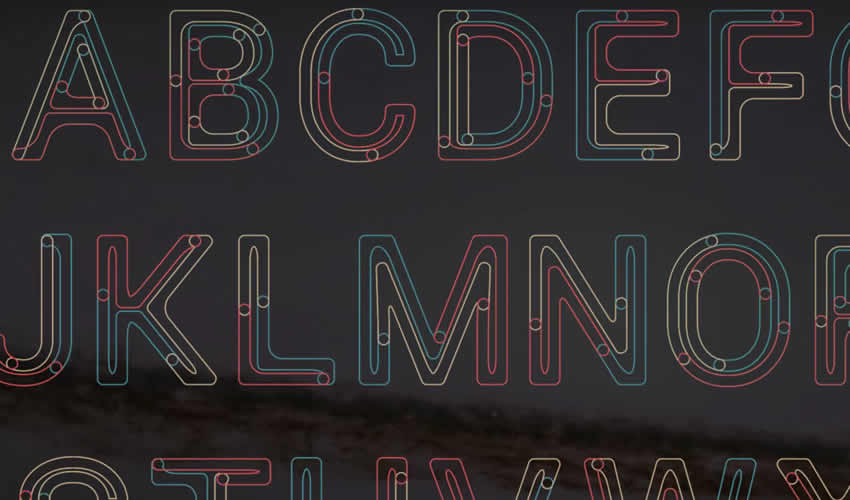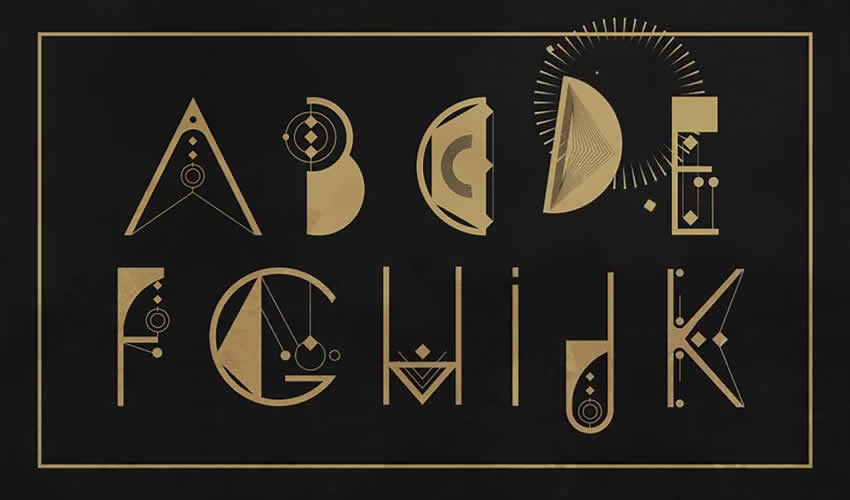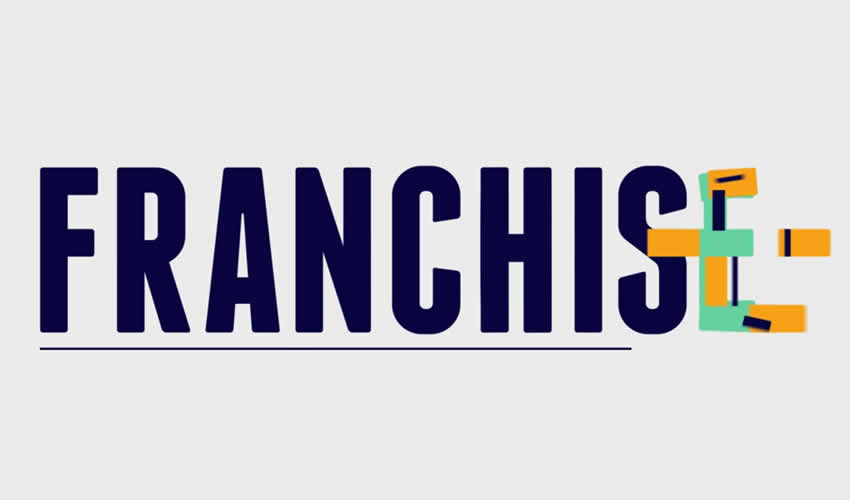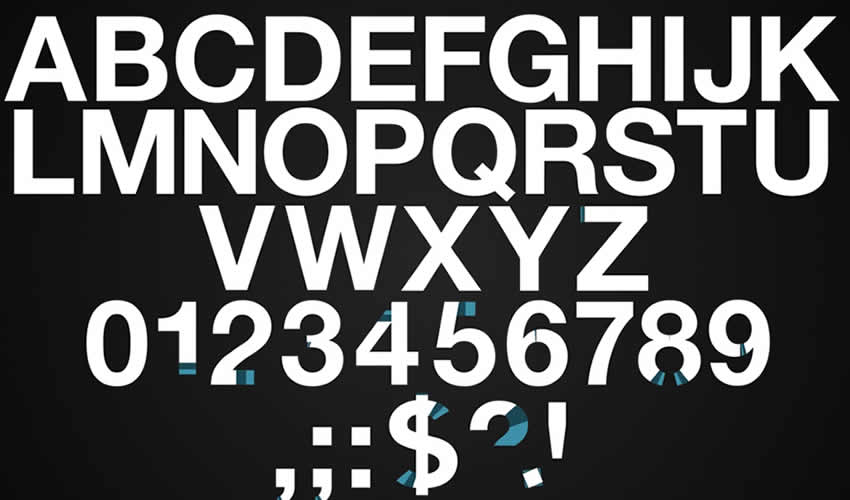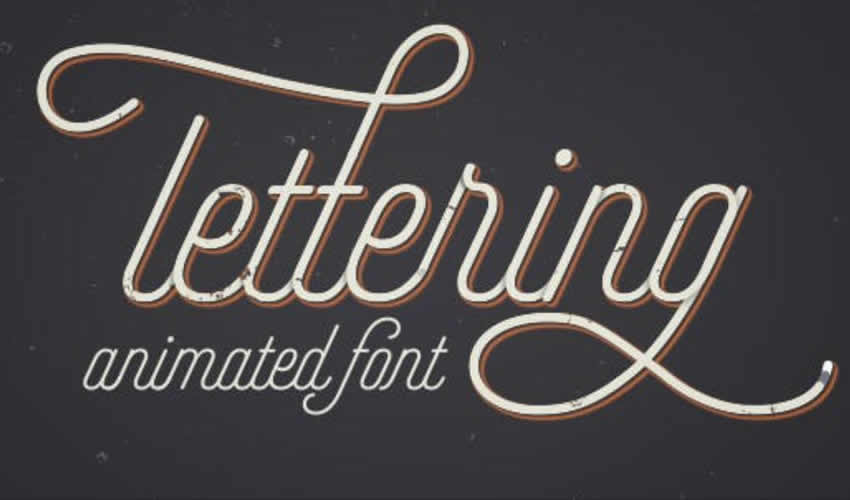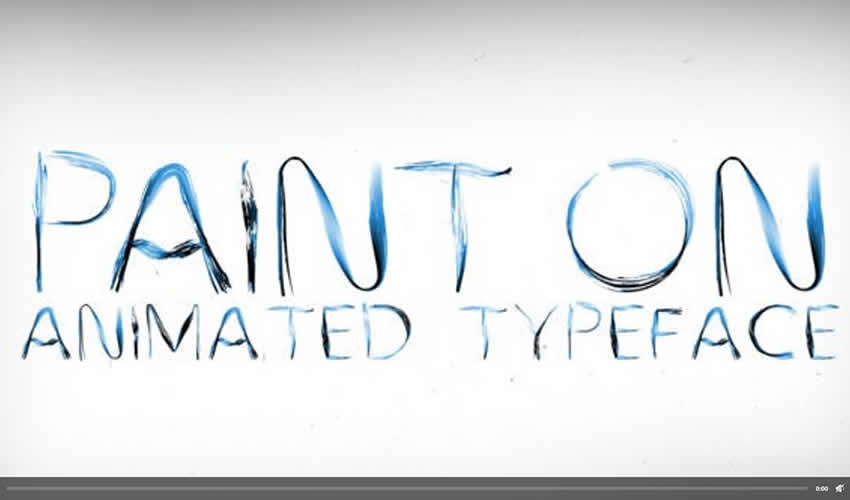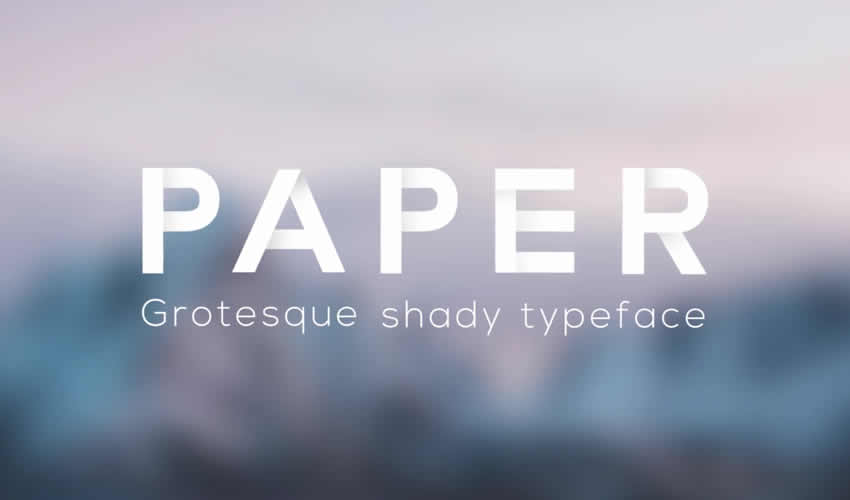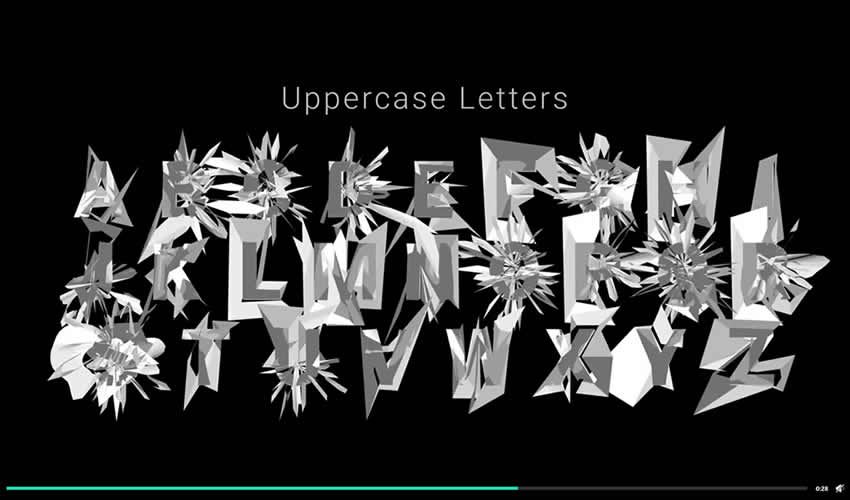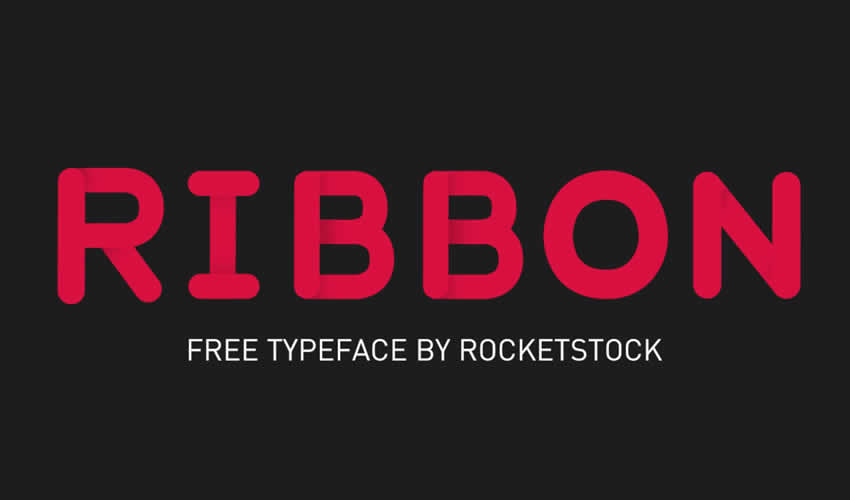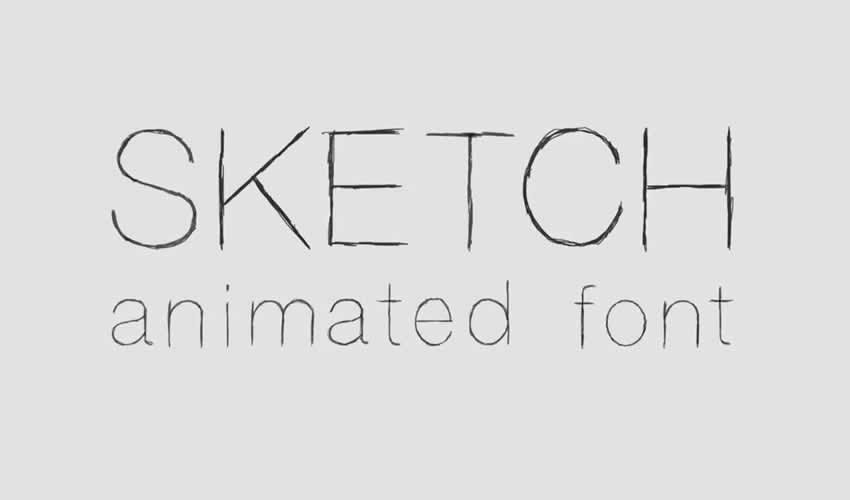
10 Free & Paid Animated Typefaces for Adobe After Effects
An animated typeface is a great way to spice up your video titles without going through the trouble of creating a title animation from scratch.
Luckily, there are a number of animated typefaces available online that you can use in your video projects. From hi-tech animated typefaces to playful and retro-style typefaces, there is an animated typeface for every type of video.
In this post, we have gathered the best animated typefaces from around the web that you can download and start using in your projects.
01. Ribbon Free Animated Typeface for Editors (Free)
The Ribbon typeface has a quirky and fun design that makes it suitable for brands and businesses that cater to a younger audience. You’ll get 78 characters and pre-rendered clips.
02. PolyNoise Alphabet Animated Typeface (Envato Elements)
The first animated typeface on the list features a glitchy look so it’s perfect for videos that use glitchy animations. The colors are easy to customize and you don’t have to worry about dropping each letter on a separate timeline with this typeface.
03. Alquimia Animated Font on Behance (Free)
The Alquimia Animated Font has a truly unique look. The font can be freely used in both personal and commercial projects and you can easily modify the colors.
04. Paper: Grotesque Shady Animated Typeface (Envato Elements)
The Paper is a perfect choice if you’re working on a video that requires a creative touch. The font includes a full alphabet as well as numerical characters, basic currency symbols, and basic math symbols.
05. Helvetica Neue Free After Effects Template (Free)
Consider the Helvetica Neue animated font for your next project that needs a classic touch. This font template is an After Effects template with 43 unique letter, number, and punctuation compositions.
06. Sketch Animated Font After Effects Template (Free)
If you’re going for a handwritten look and feel, the Sketch Animated Font is the perfect choice. The font includes capital letters, lower case letters, numbers, and punctuation marks.
07. Paint on Animated Typeface (Envato Elements)
The Pain On animated typeface is a must-have if you want to add a unique look to your video. Each character paints on with white, black and blue colors which can easily be customized to your brand colors.
08. Animography Animated Font for AE (Free)
The Animography animated font is a full-featured animated font that came about as a collaborative project between 110 animators and 1 designer. The font has a distinct, bold look and you can use it for corporate videos.
09. Alphabet Free Animated Font and AE Project (Free)
This colorful and attention-grabbing animated font was based off of the open source Google font called Roboto. Each letter is a separate file and you can easily drag and drop each letter into your own project.
10. Animated Lettering Font (Envato Elements)
The Animated Lettering Font would be a great choice for a wedding video or a video that promotes a high-end fashion or jewelry company. The font includes a complete alphabet and numbers and a variety of different styles.
Kinetic typography is a great addition to any video project as it can add extra visual appeal without the need to create animated titles from scratch. Use this list to find the perfect animated typeface for your next video project.